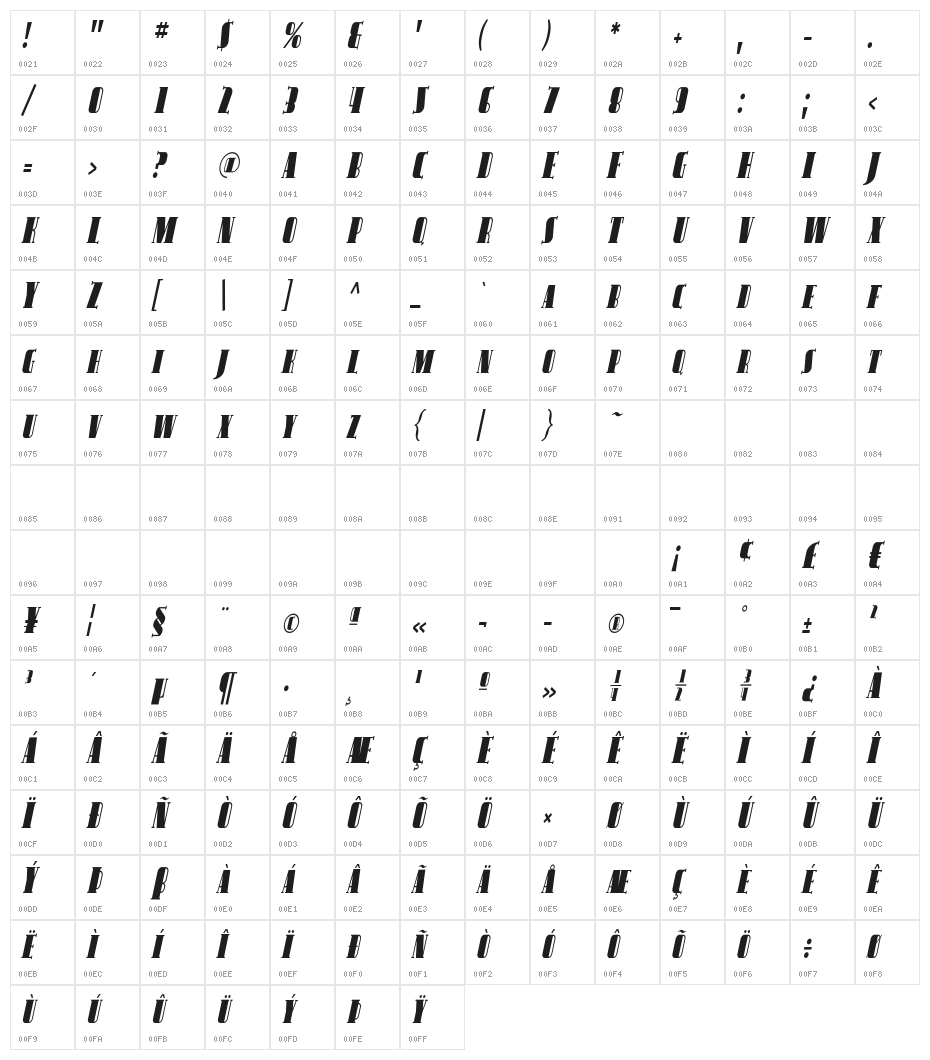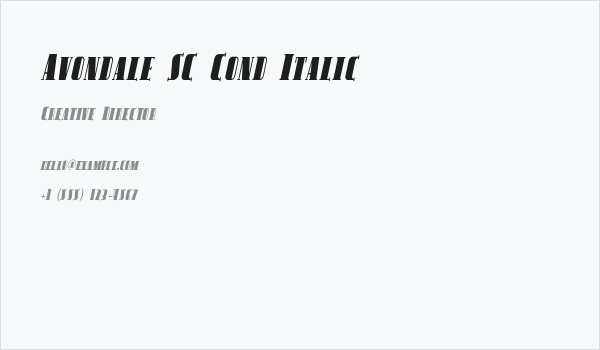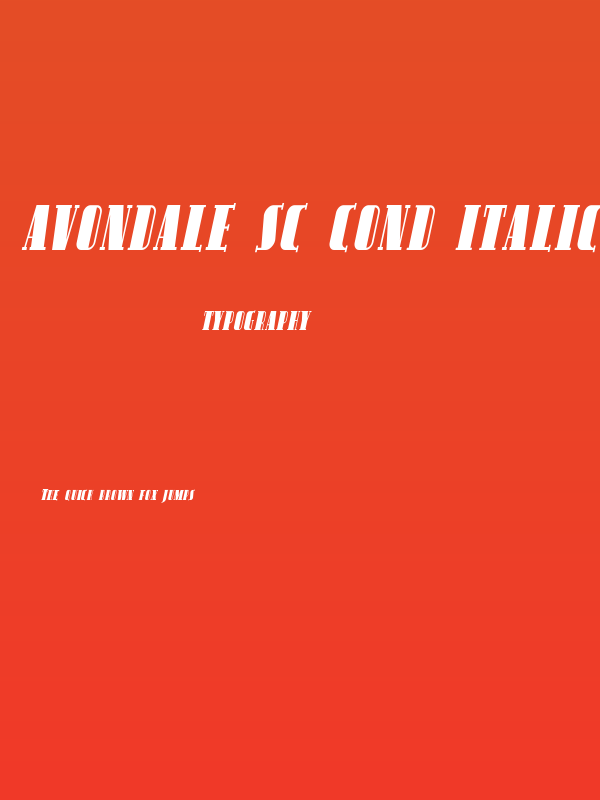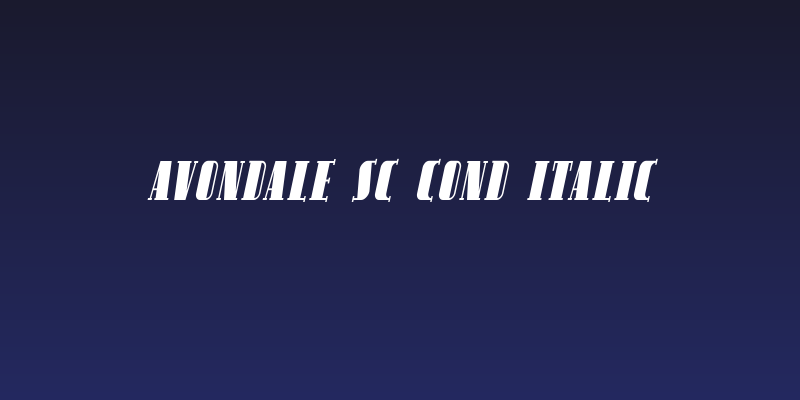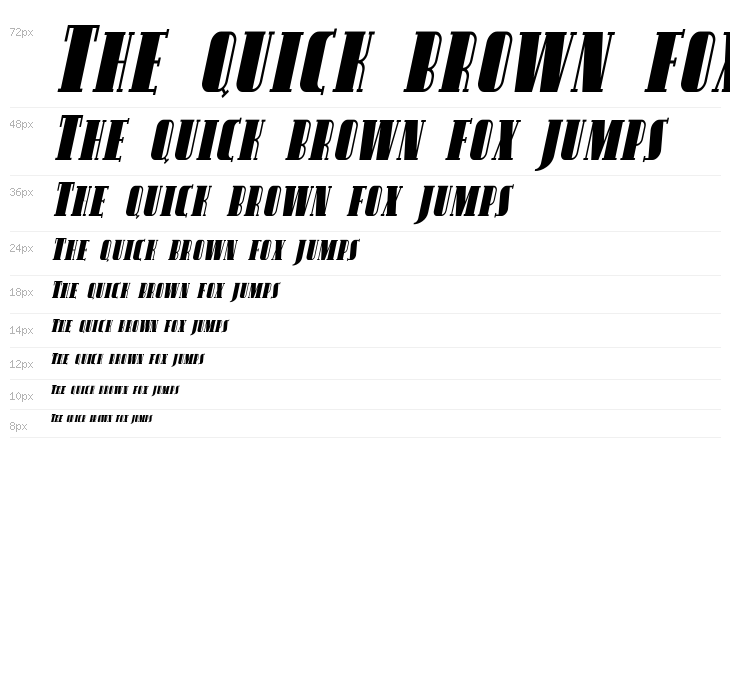
Avondale SC Cond Italic Font
Avondale SC Cond Italic Description
This font features a bold and dynamic style with a strong italic slant, giving it a sense of motion and energy. The characters are condensed, which enhances its compact and efficient look, making it suitable for space-saving designs. The strokes are thick and consistent, providing a high contrast that makes the text stand out prominently. The overall design is modern and sleek, with sharp edges and clean lines that convey a sense of sophistication and professionalism. The uppercase and lowercase letters maintain a uniform style, while the numerals and special characters integrate seamlessly, ensuring versatility across various applications.
| Proposed Projects | Ideal for branding, advertising, and editorial design where a strong, impactful presence is needed. |